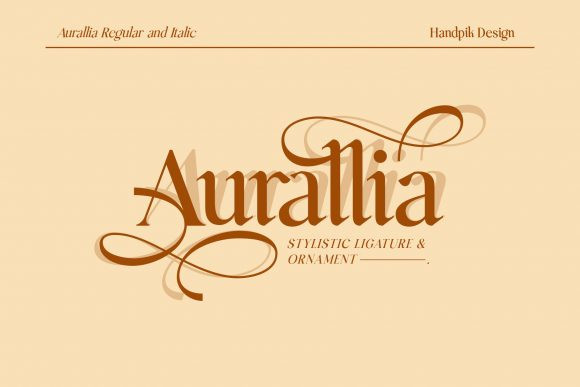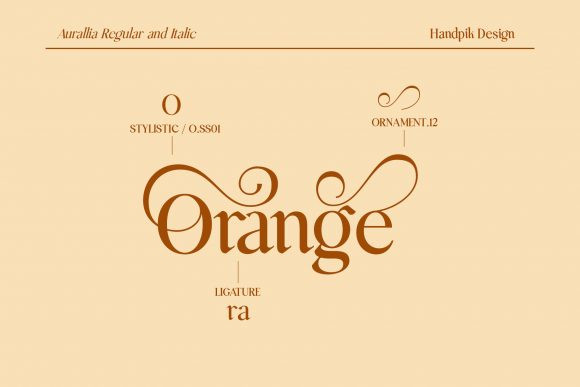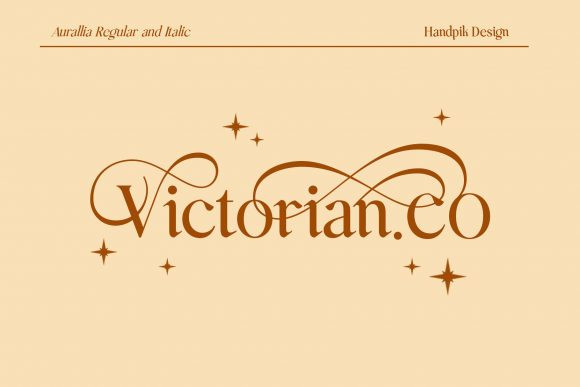
Aurallia Font
Aurallia is a refined and fashionable serif font. This font is neatly crafted and highly detailed. Whatever the topic, this font will be a wonderful asset to your font library, as it has the potential to enhance any creation.